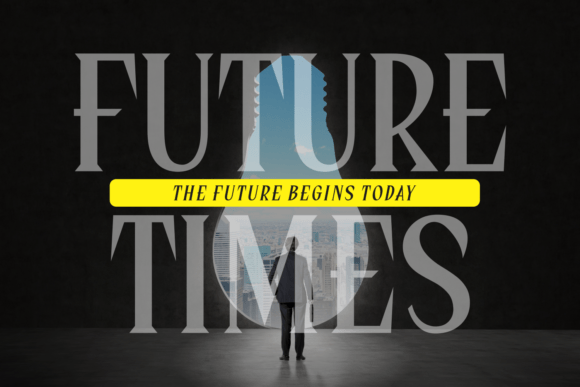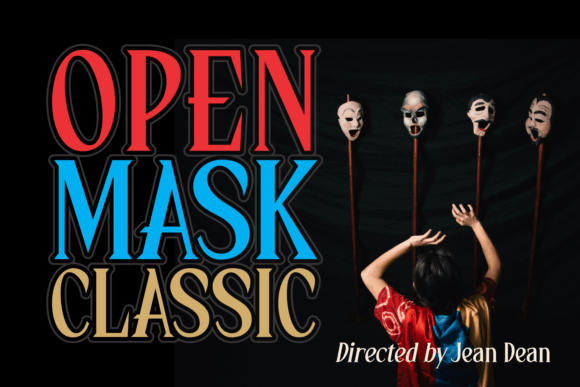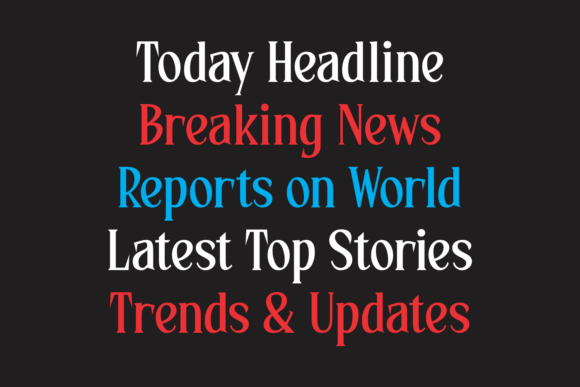
Introduction to Denzaga Font
Denzaga is a timeless serif font that masterfully blends classic elegance with sharp, modern design.
Its refined letterforms feature pointed serifs and strong vertical contrast, creating a bold yet graceful typeface suitable for a wide range of applications Whether you’re designing a premium brand, editorial spread, book cover, or digital content, Denzaga delivers sophistication and clarity.
Key Features of Denzaga Font
Why Choose Denzaga Font?
Denzaga Font offers exceptional quality and versatility, making it a valuable addition to your design toolkit. Whether you’re creating for personal projects or commercial use, Denzaga Font delivers professional results.